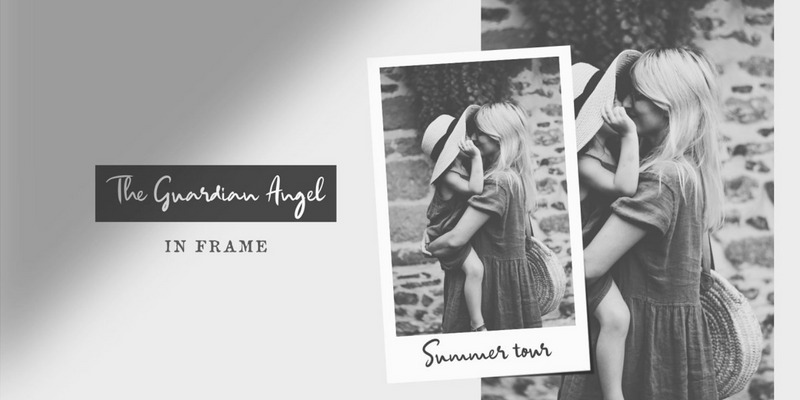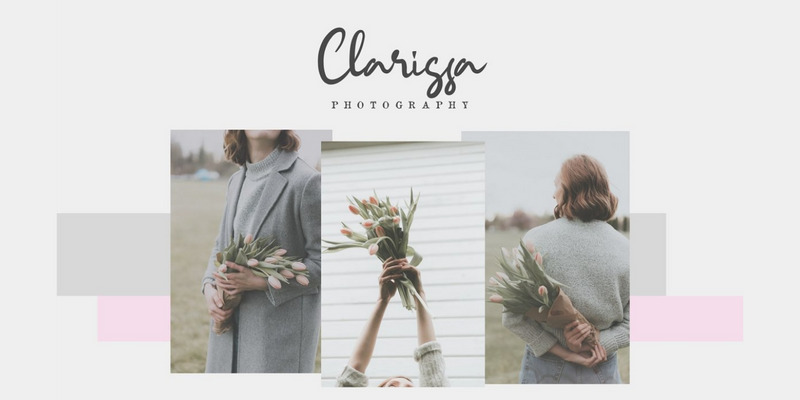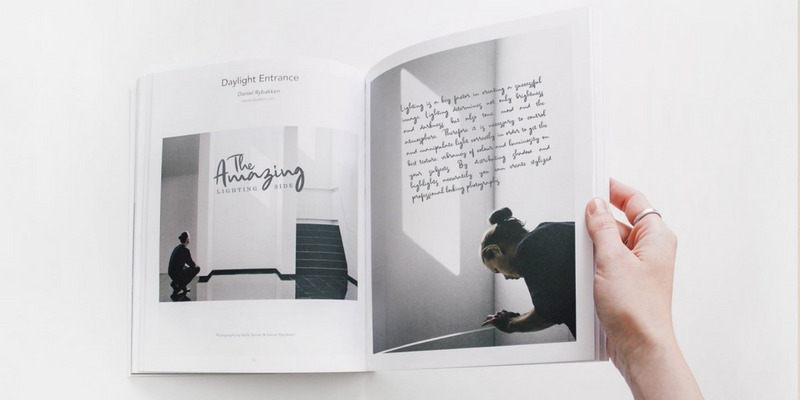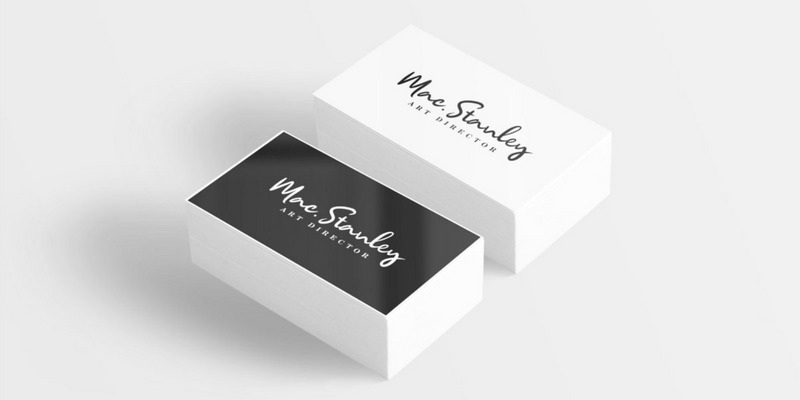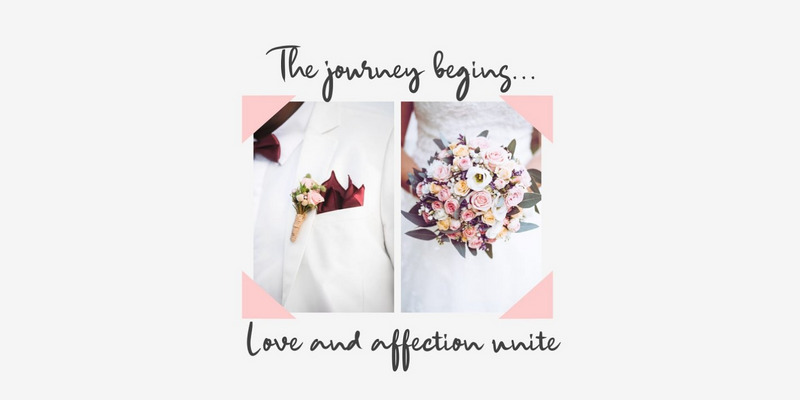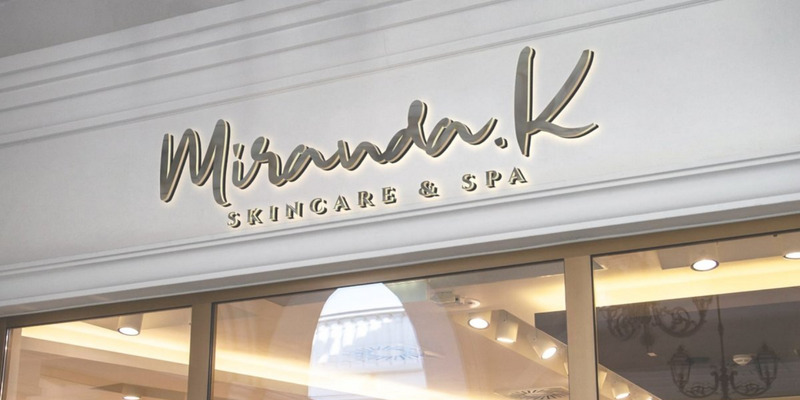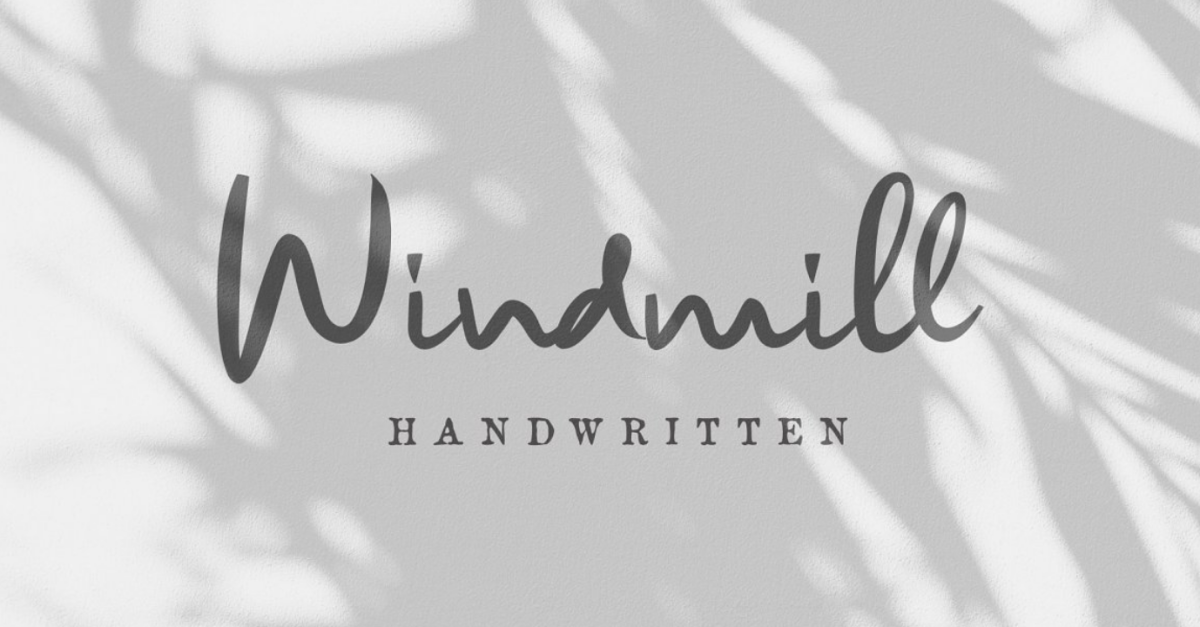
Windmill Script Elegant Font
Windmill font made with handwritten style, every shape, and stroke is simple yet but perfect to add to the perfection of your design. Windmill is outstanding and elegant for logotype, subtitle, text information, scrapbooking, biz card, branding, and etc.
• Uppercase and lowercase
• Numeral and punctuations